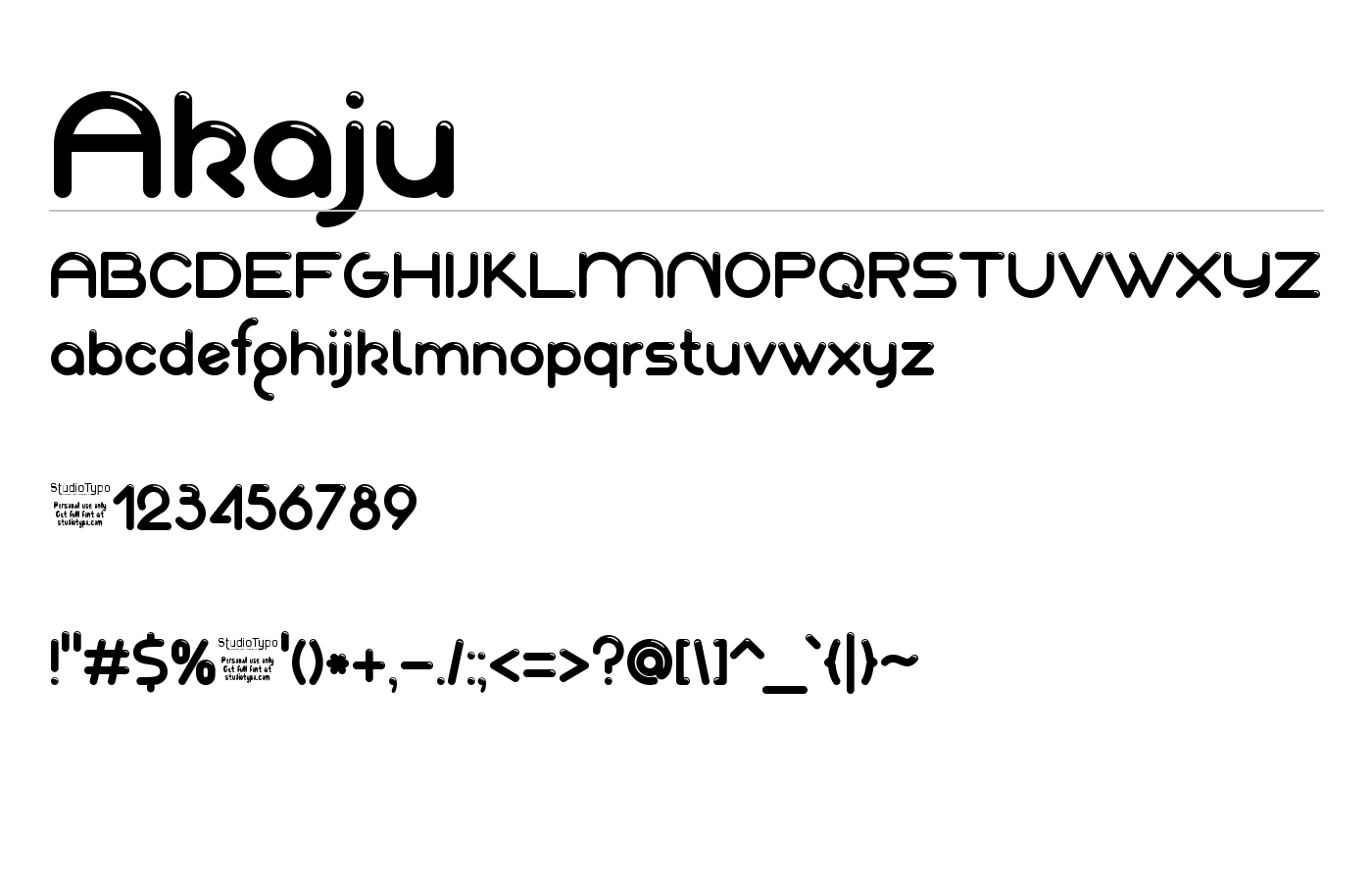
Akaju is a playful and modern sans serif font with rounded edges and a friendly, geometric style. It features a regular weight with consistent stroke widths, a slightly condensed width, and a smooth, approachable look that makes it ideal for creative projects, branding, and display use where a casual yet distinctive personality is desired. This font works well for headlines, logos, and packaging that want to convey warmth and uniqueness without sacrificing readability.
Akaju Font
About Akaju Font
| Font family | Akaju Font |
| Designer | Mehmet Abacı |